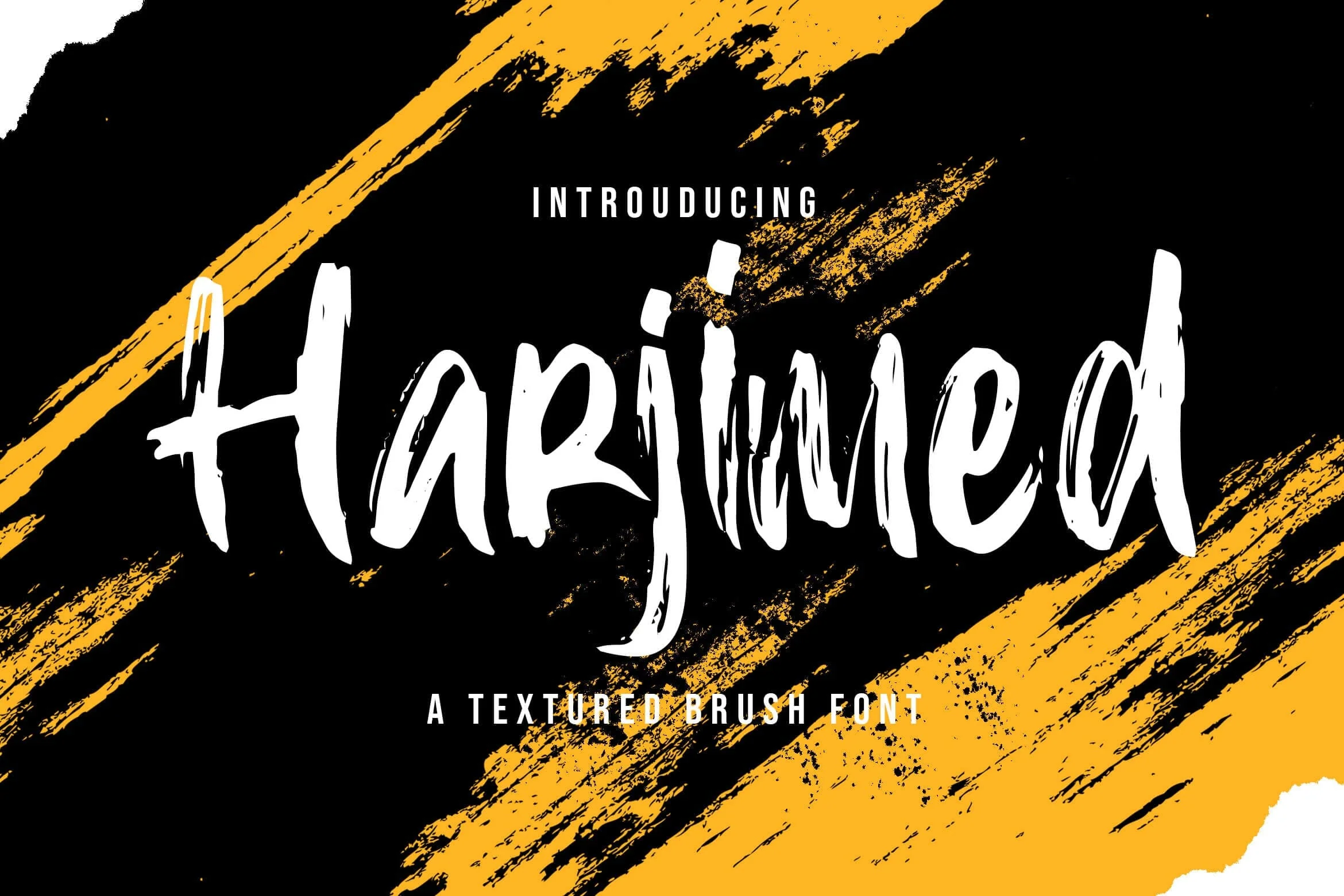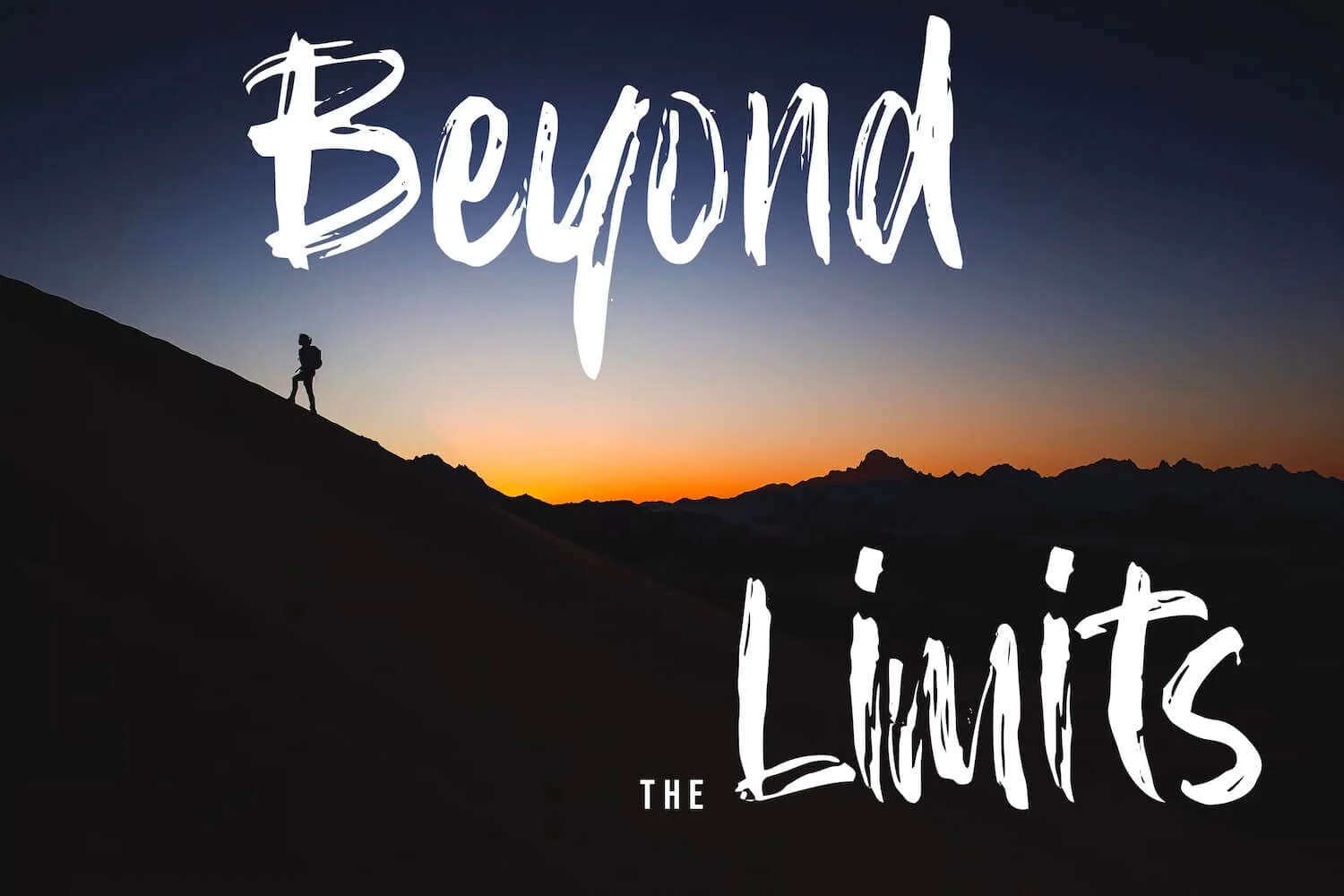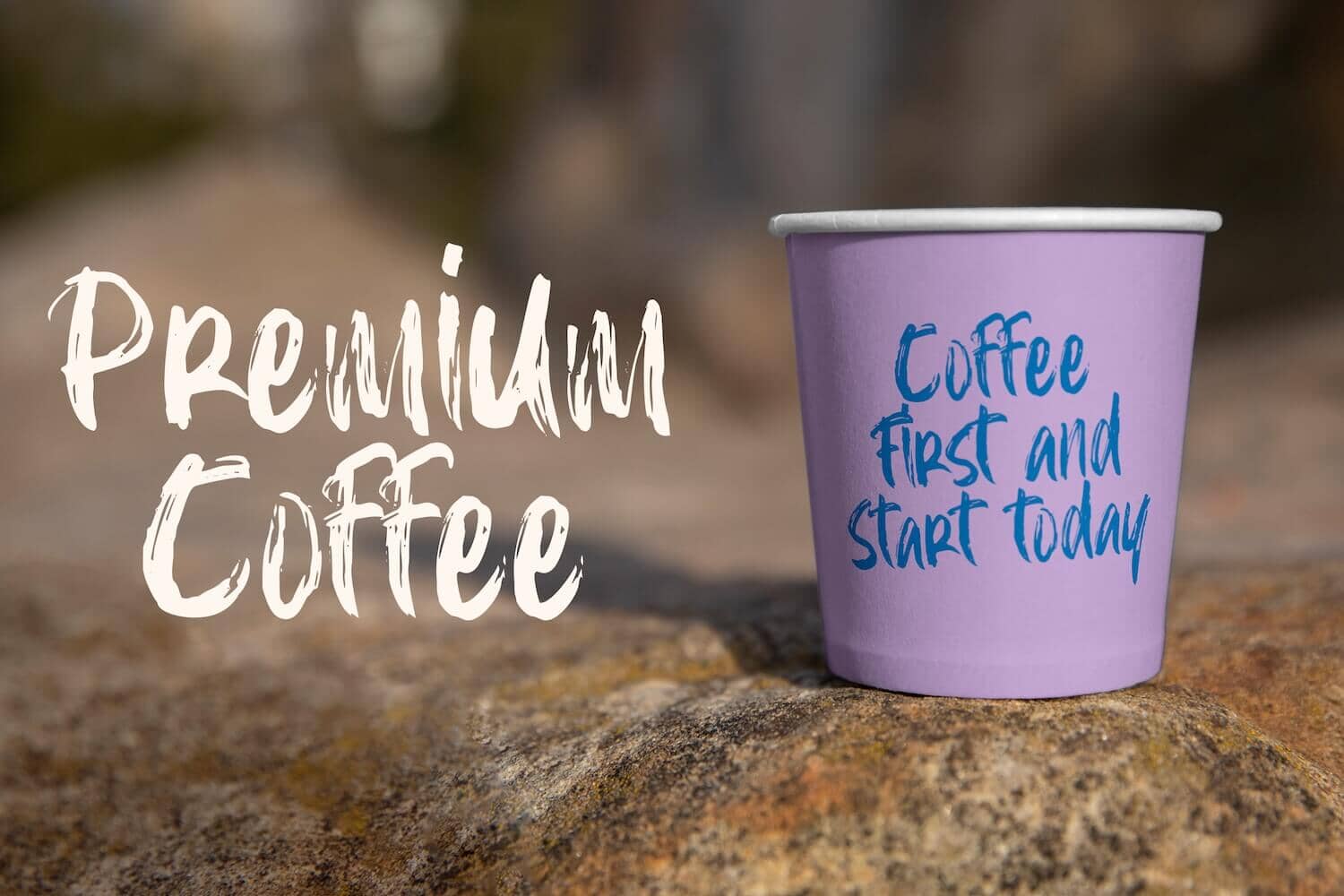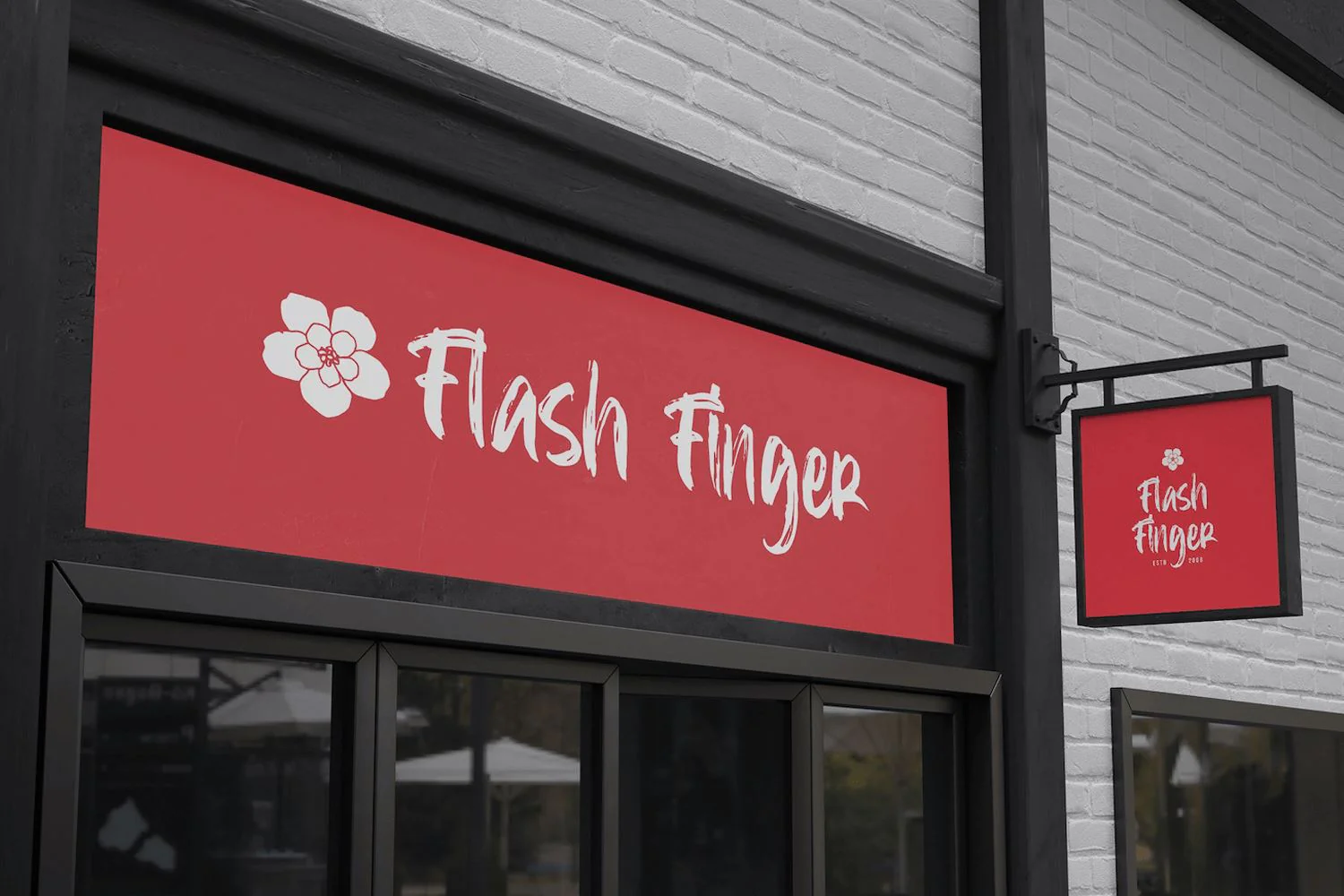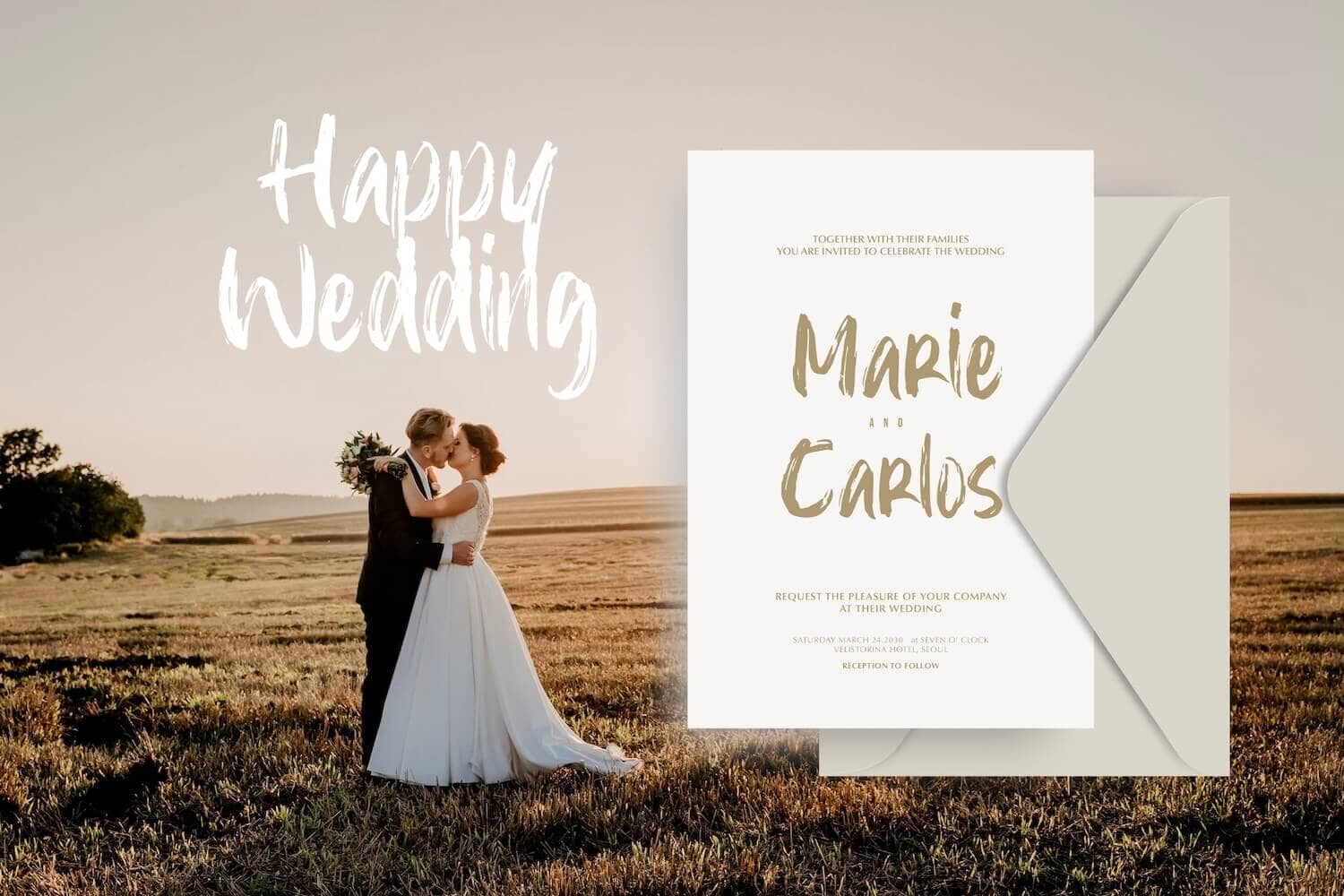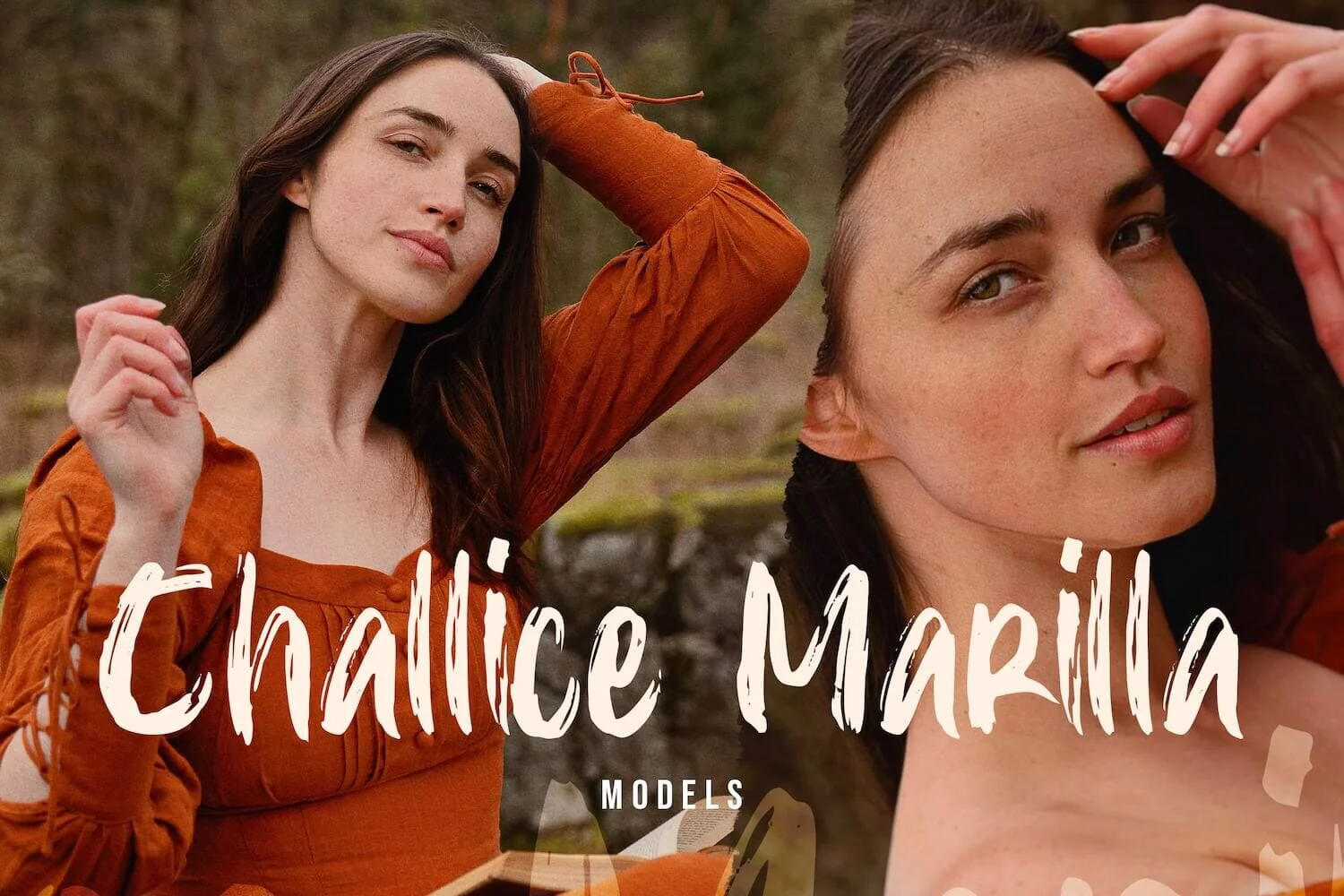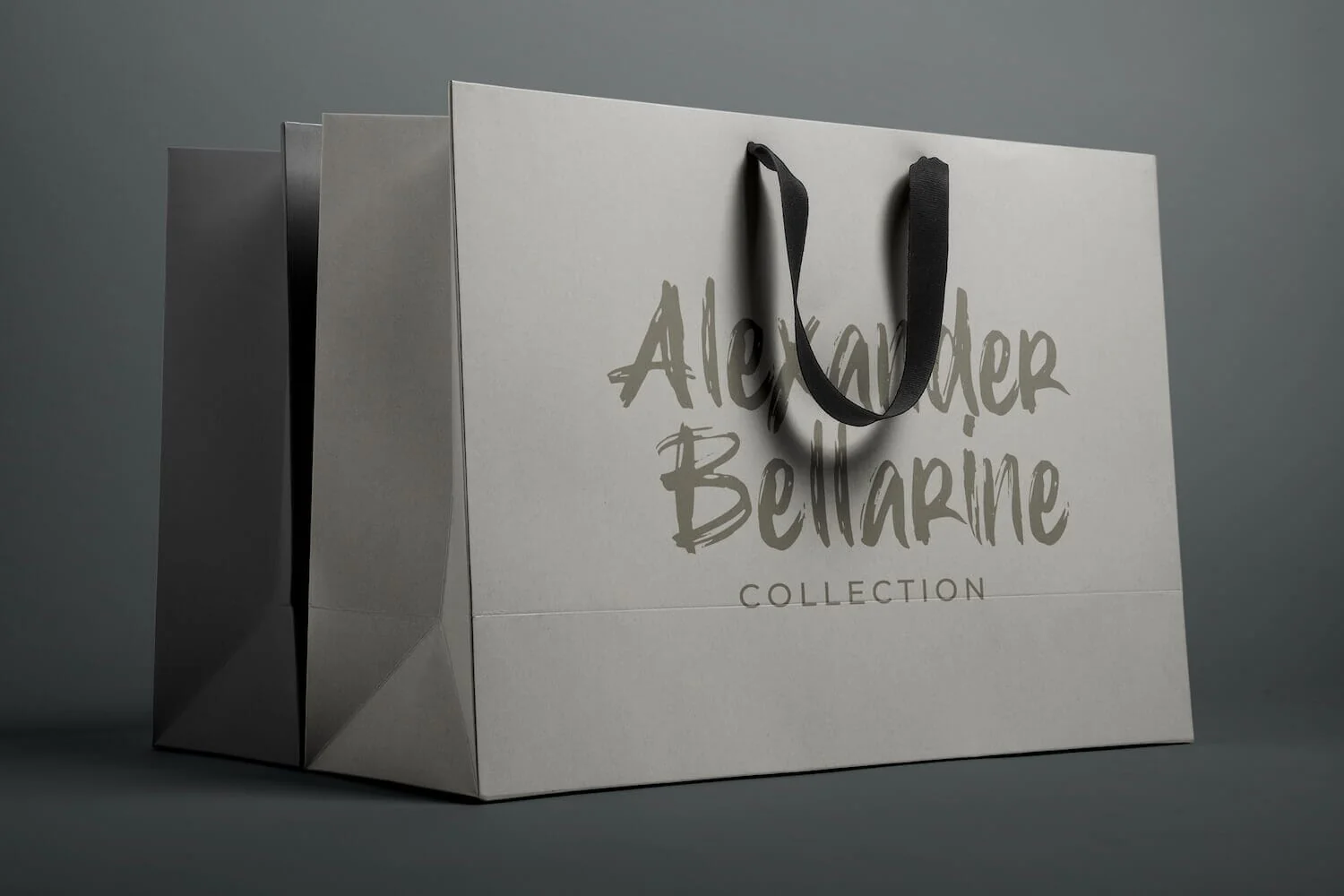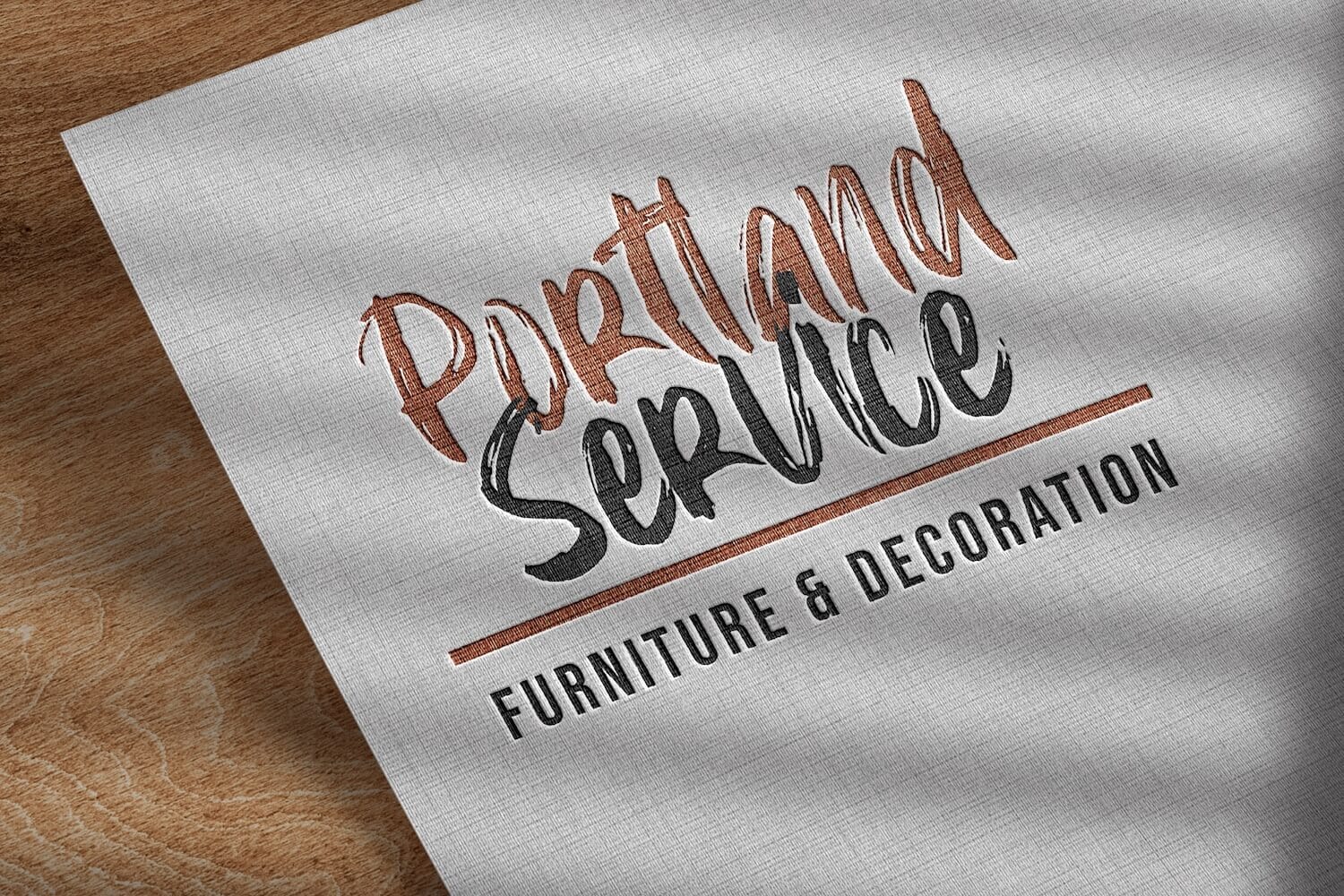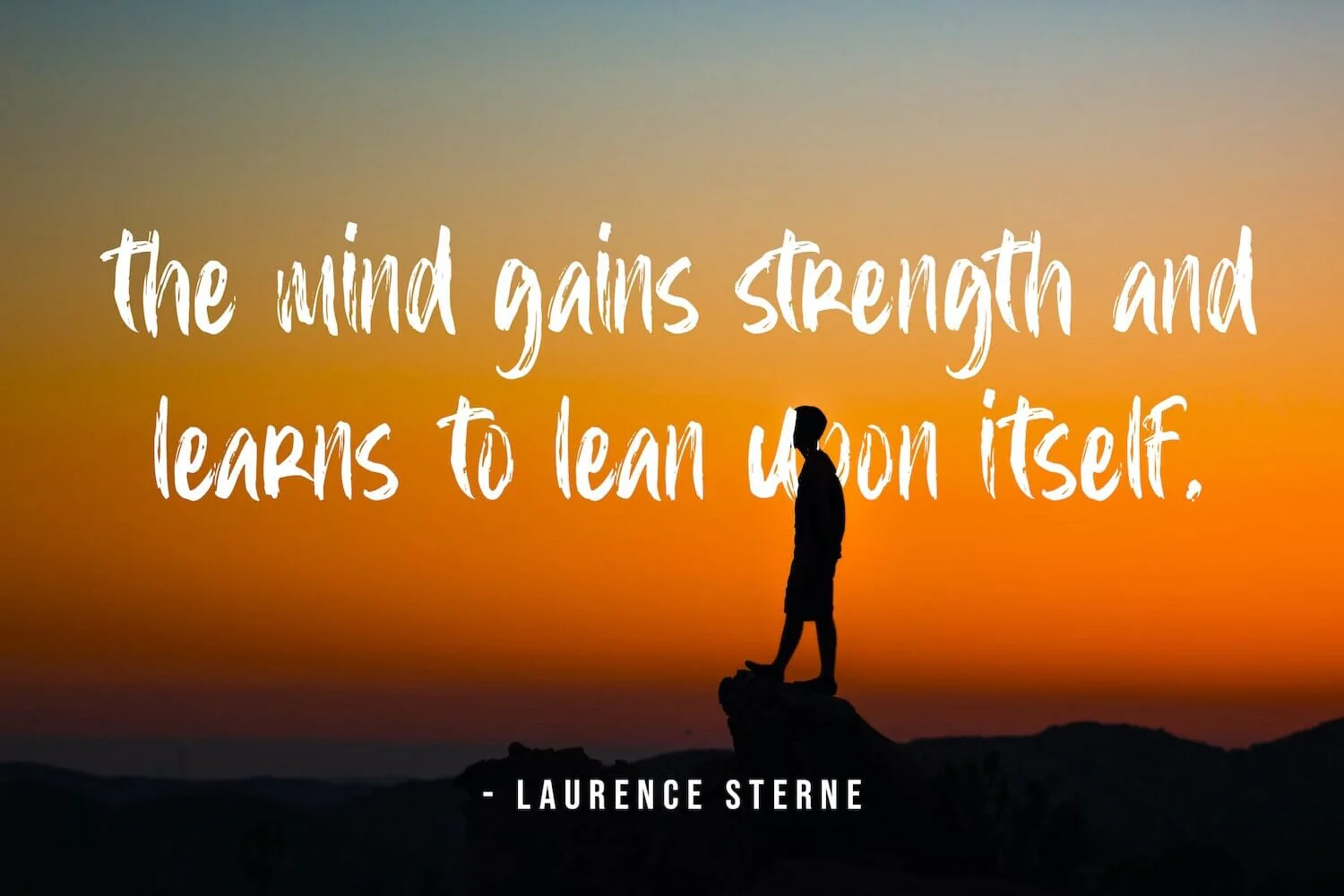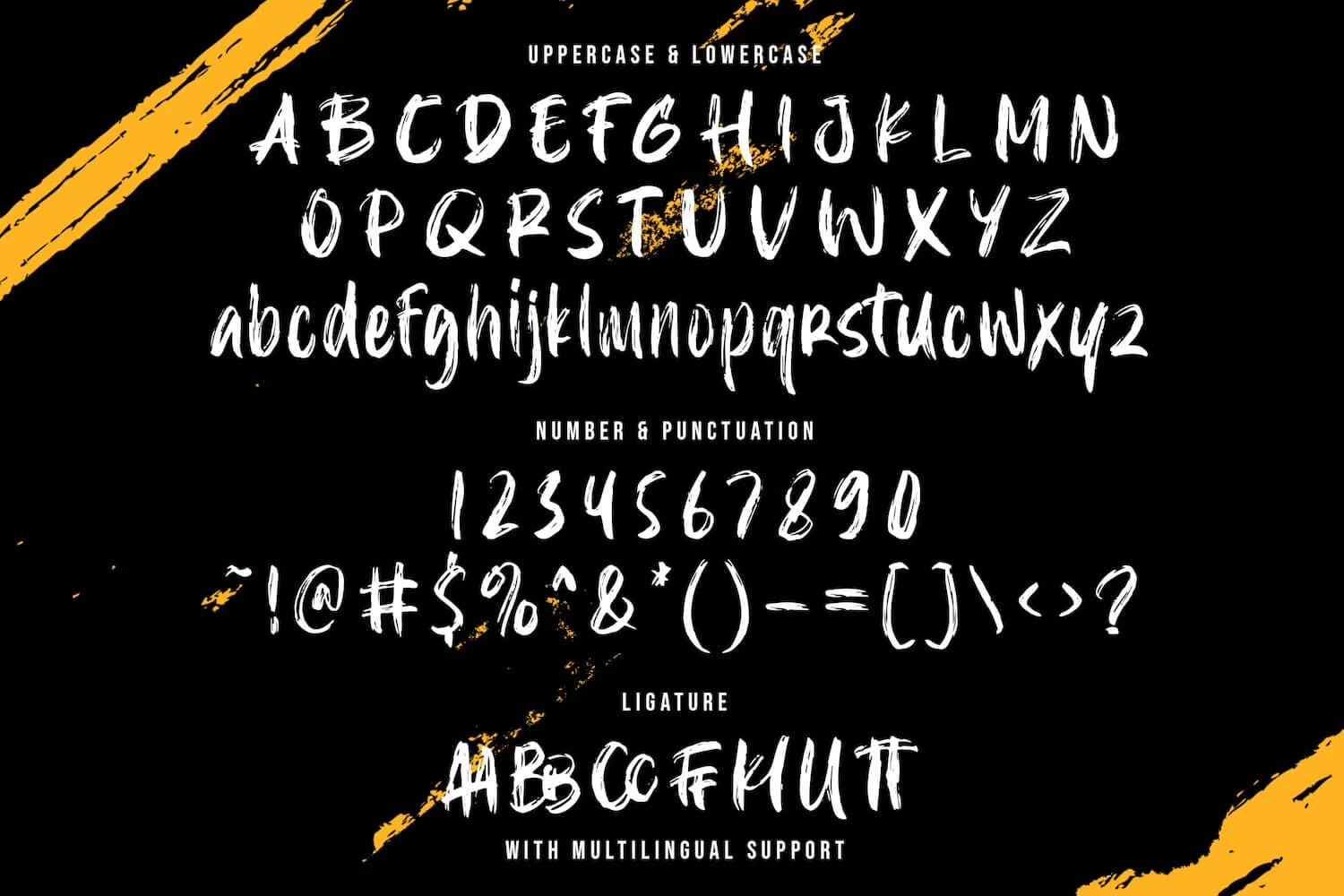
Harjimed - Textured Brush Font
Introducing Harjimed - Textured Brush Font
Harjimed is a textured handbrush font. Harjimed is a flowing and stylish display brush font, created with the help of a brush pen. Get inspired by its unique and beautiful style and add it to your favorite designs!
Introducing Harjimed - Textured Brush Font
Harjimed is a textured handbrush font. Harjimed is a flowing and stylish display brush font, created with the help of a brush pen. Get inspired by its unique and beautiful style and add it to your favorite designs!